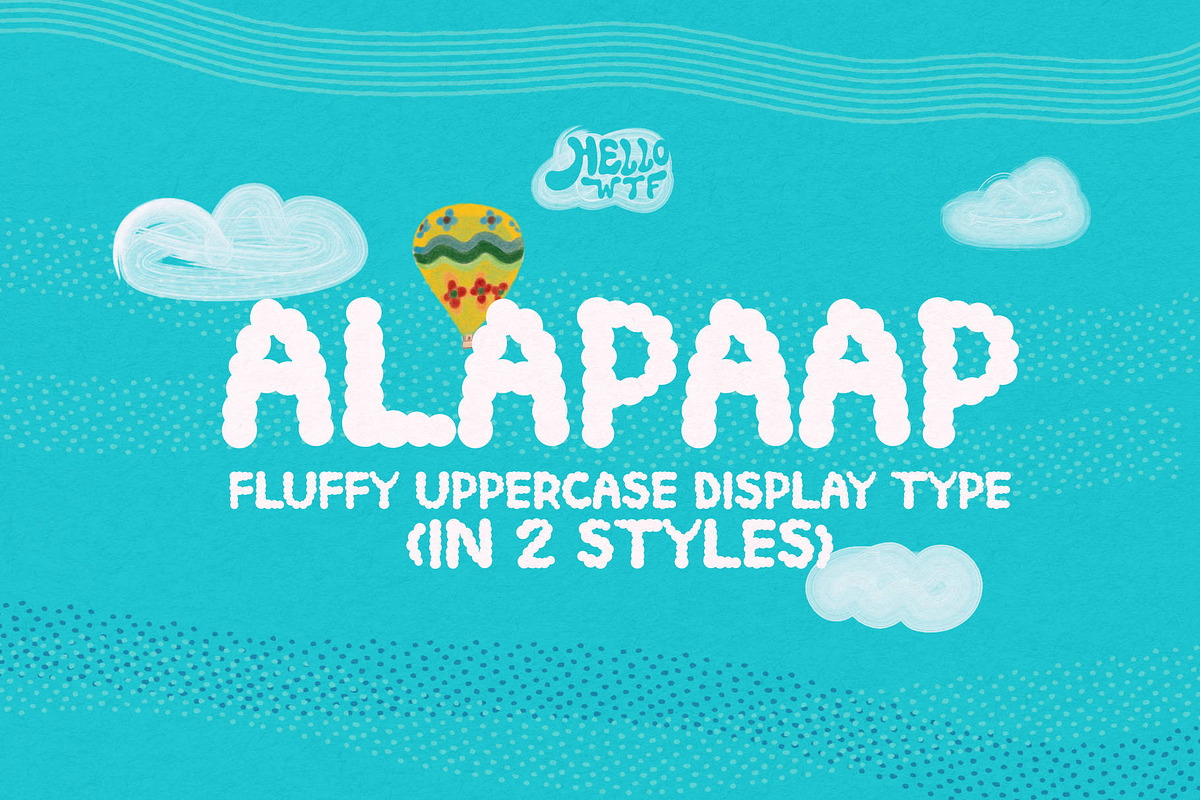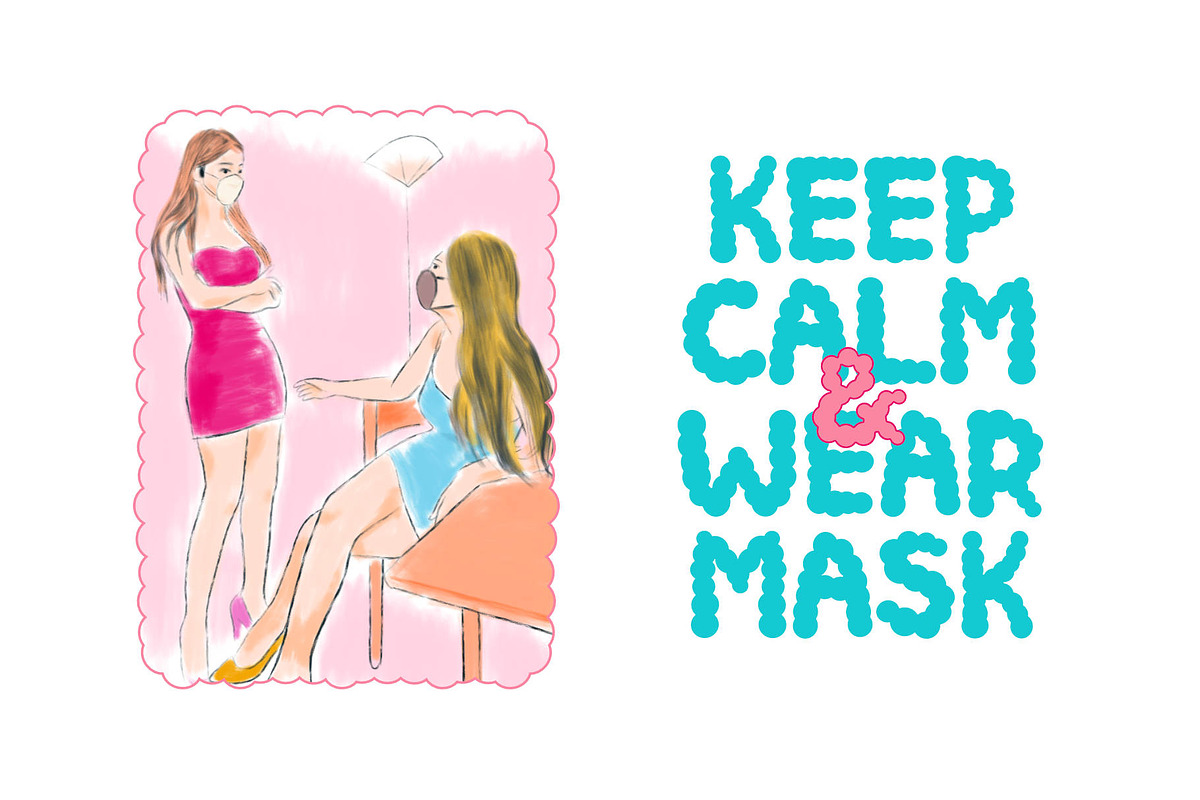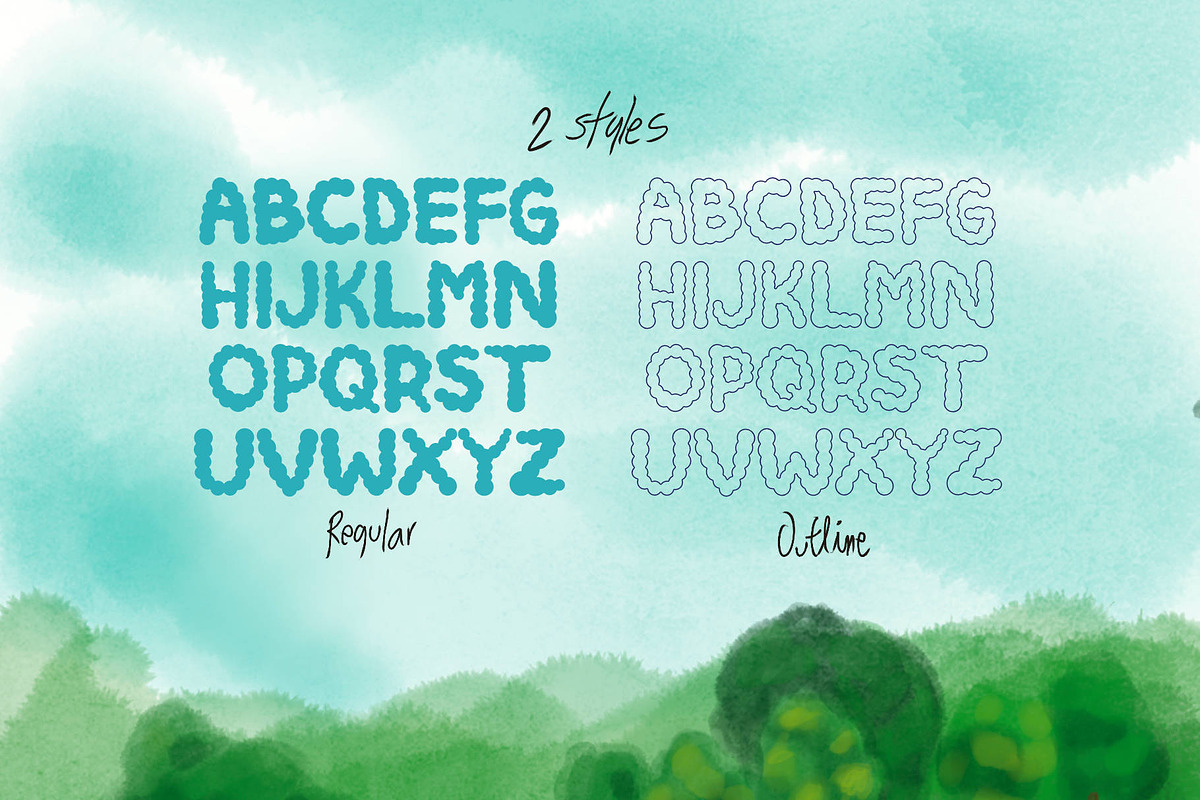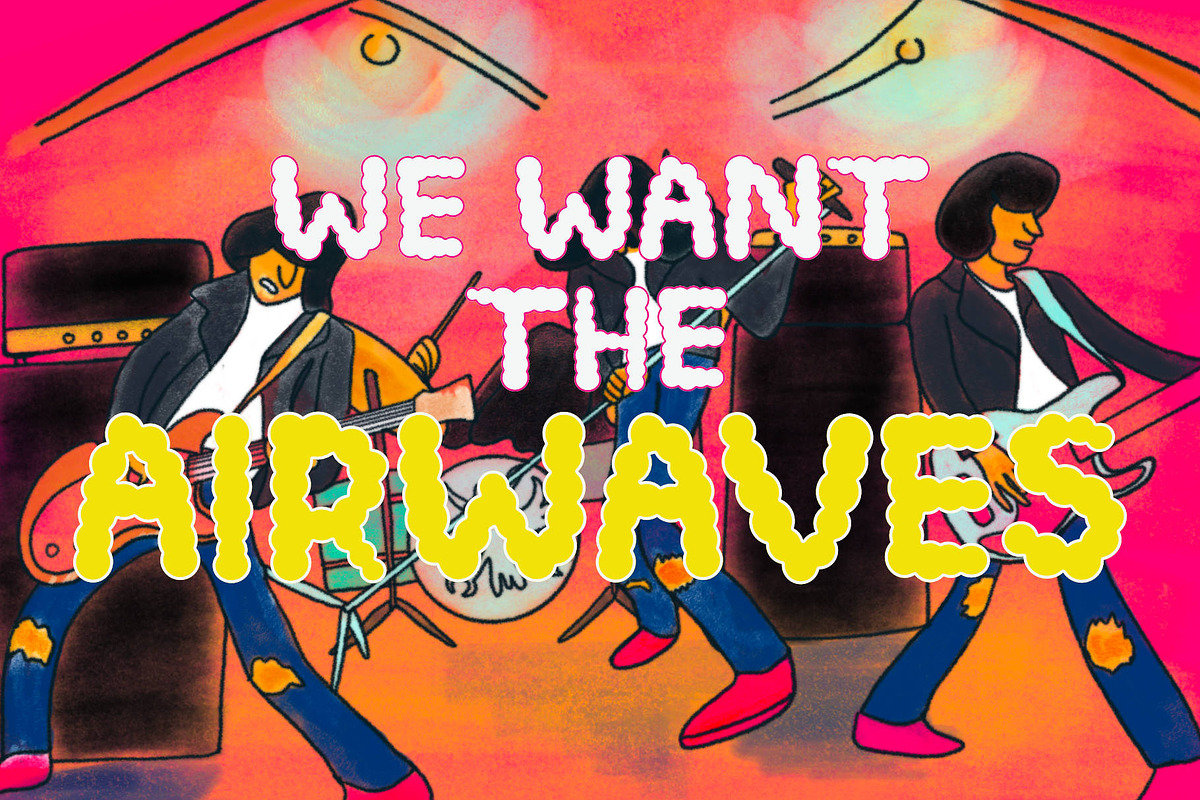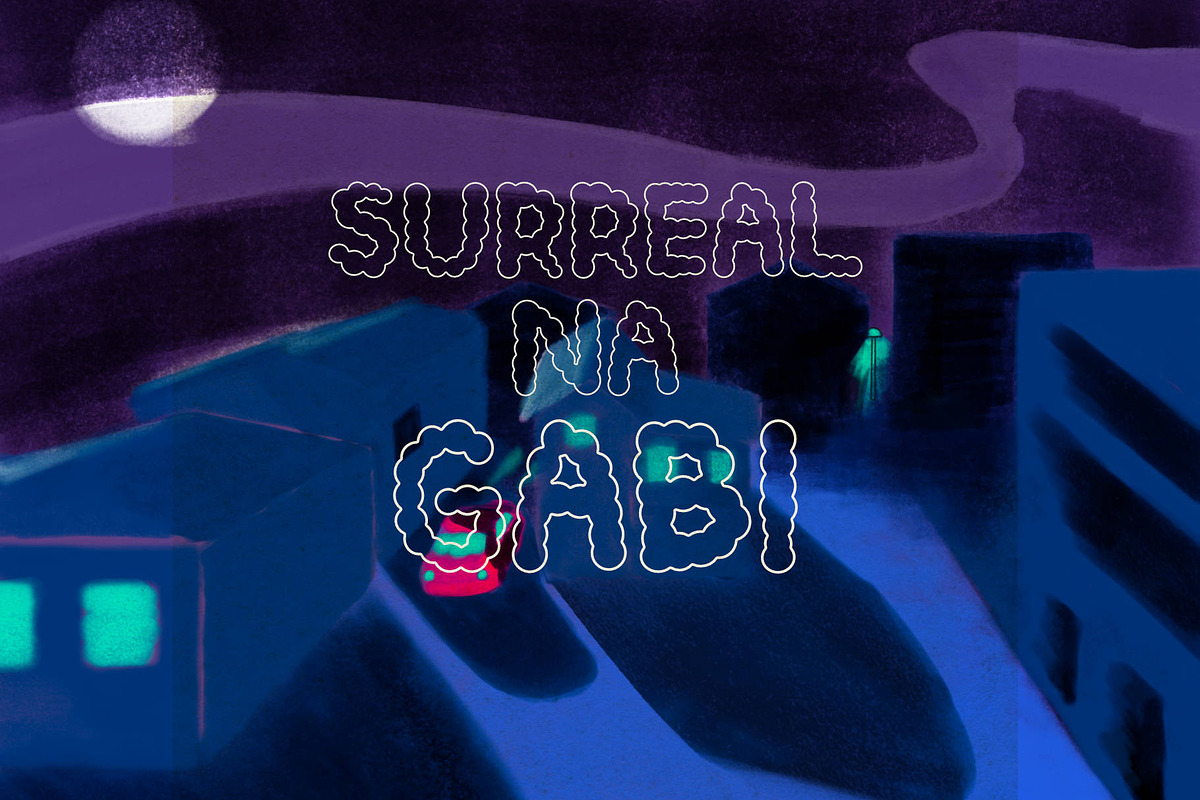
Alapaap
Alapaap is a fat, fluffy display typeface intended to convey childlike wonder with use of cartoonish shapes. It's clean, wholesome fun but with a little bit of mischief!